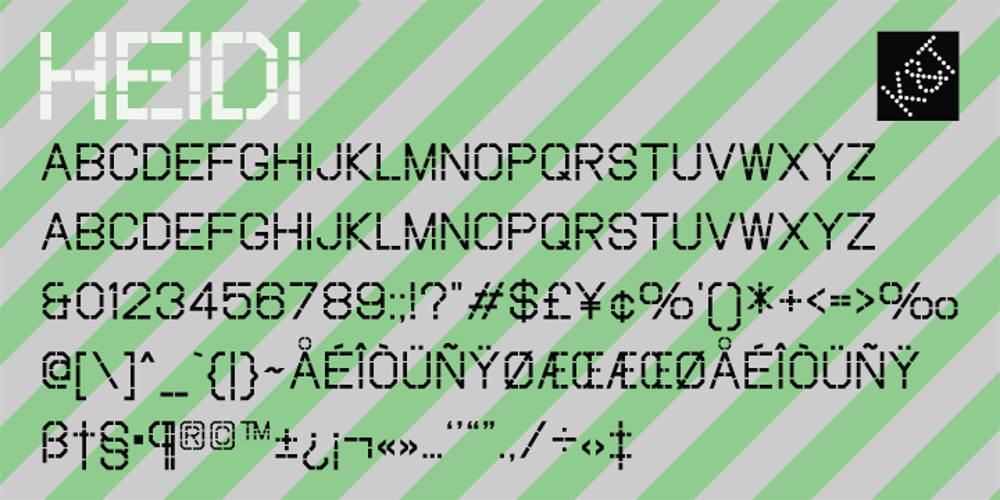
K&T Heidi
K&T Heidi font
K&T Heidi Font Family was designed by published by K and T. K&T Heidi contains 3 styles and family package options. This is a well-built, functional (all caps) typeface, which is very modern in character. The use of diagonal corners in this angular typeface is inspired by the pennant numbers on British Royal Navy warships, which adds an military quality to this typeface. The gaps, which form the Stencil divisions, follow pre-established horizontal and vertical lines, they help to achieve both geometric and proportional harmony. The direction of the gaps is always at a right angle to the stroke.